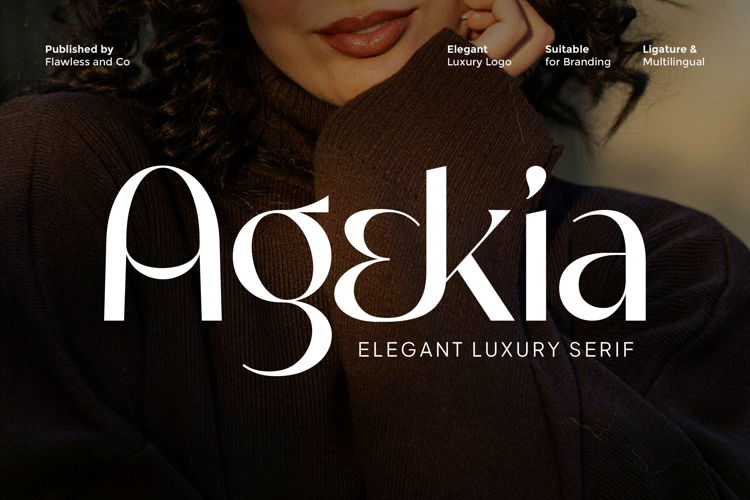
Agekia
AGEKIA
Agekia - Elegant Serif Font
Agekia is an elegant luxury serif font crafted to express sophistication, refinement, and timeless beauty. With its graceful curves, balanced proportions, and stylish ligatures, Agekia delivers a premium look that feels modern yet classic. Every letterform is designed to elevate your visuals, making your brand appear confident, exclusive, and high-end. Perfectly blending luxury aesthetics with readability, Agekia works beautifully for standout headlines and refined logo designs.
• Alternates & Ligatures
Who Should Use Agekia?
Agekia is perfect for designers, brand creators, and creatives who want to deliver a luxurious and elegant visual identity. It’s especially suited for those working with high-end brands that value sophistication, clarity, and timeless style.
A Must-Have Font for Agekia Creators and Designers
Agekia is an essential choice for creators and designers who seek elegance and luxury in their work. With its refined serif details and graceful letterforms, Agekia brings a premium feel to any design. It’s ideal for those who want to create sophisticated branding, memorable logos, and high-end visual identities that stand out with timeless beauty.
Suitable for:
• Luxury brand & logo design
• Fashion, beauty, and lifestyle branding
• Editorials, magazines, and lookbooks
• Premium packaging design
• Wedding invitations & event branding
• High-end social media and marketing visuals